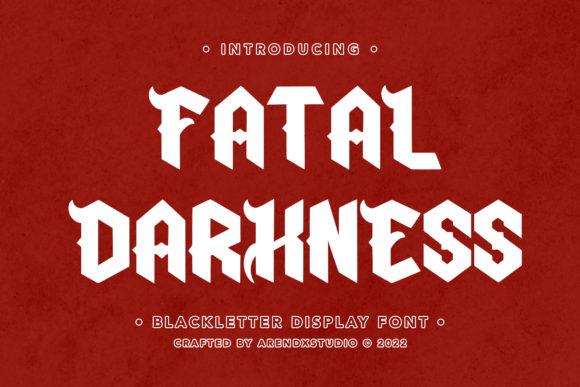
Journey into the realm of darkness and intrigue with Fatal Darkness Font, a captivating blackletter display font that oozes personality and mystery. Inspired by gothic and horror aesthetics, this font boasts a distinctive shape, perfect for unleashing your creativity in projects where shadows dance and emotions run deep.
Slip into the shadows and let your words take on an air of enigma. Fatal Darkness Font's unique glyphs and ligatures, easily accessible with PUA encoding, beckon you to explore the depths of your imagination. Paint a picture of haunted nights and forgotten tales, or craft logos that evoke an aura of intrigue.
Unleash the power of Fatal Darkness Font to bring your music lyrics to life. Its bold strokes and dramatic curves dance across the page, capturing the essence of your melodies and amplifying the emotions they carry. From heavy metal anthems to haunting ballads, this font will make your lyrics resonate with an intensity that leaves listeners spellbound.
But Fatal Darkness Font's allure extends beyond the realm of music. Its versatility shines in branding and design projects, where it lends a touch of edgy elegance to logos, posters, and social media graphics. Create invitations that hint at hidden secrets, design book covers that transport readers to dark and fantastical worlds, or craft T-shirt designs that exude an aura of mystery.
With Fatal Darkness Font, you hold the key to unlocking a world of creativity where shadows dance and stories unfold. Its captivating design and versatility make it the perfect choice for projects that demand a touch of intrigue and a dash of darkness. Embrace the allure of the night and let Fatal Darkness Font ignite your imagination today!